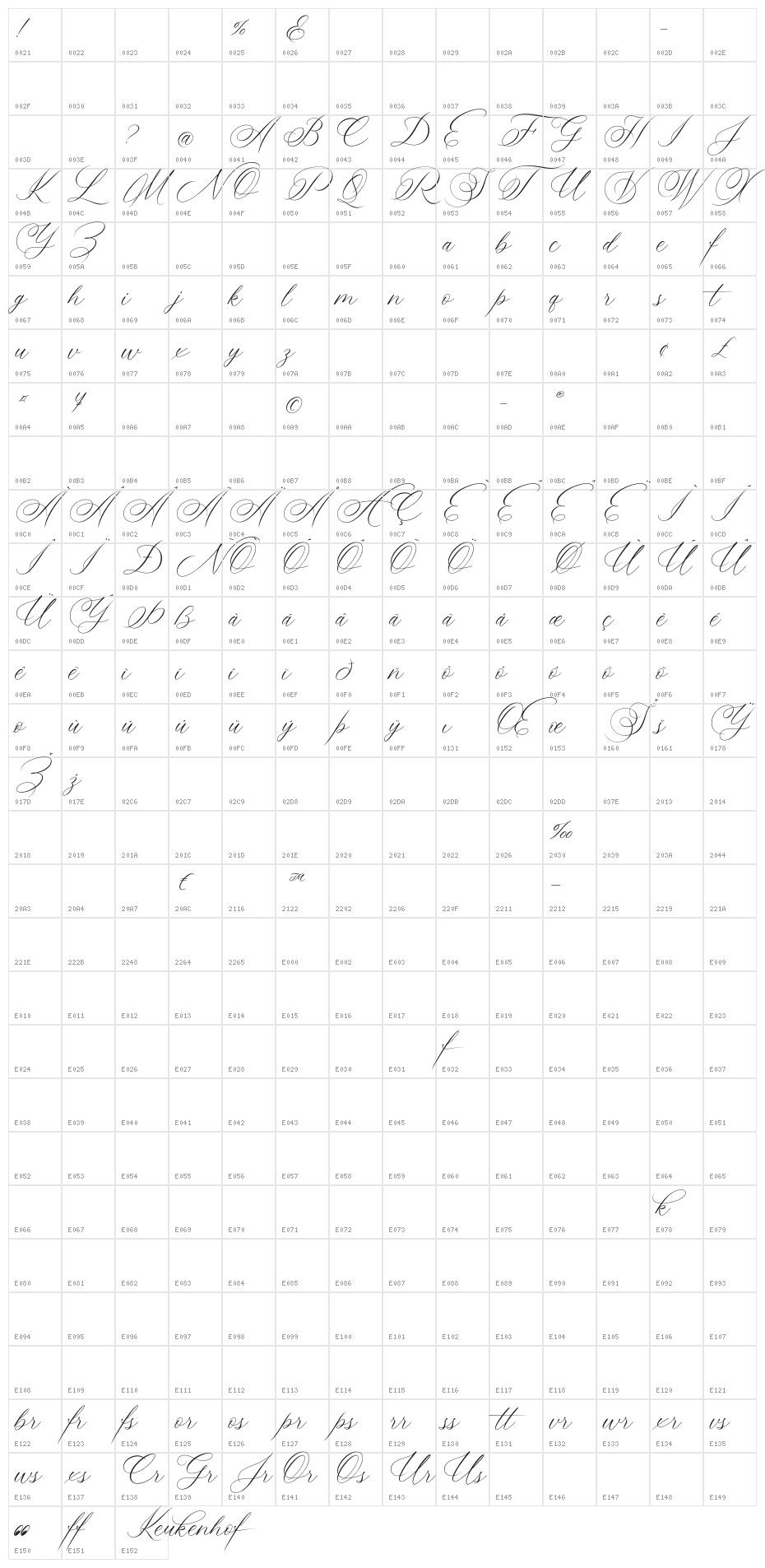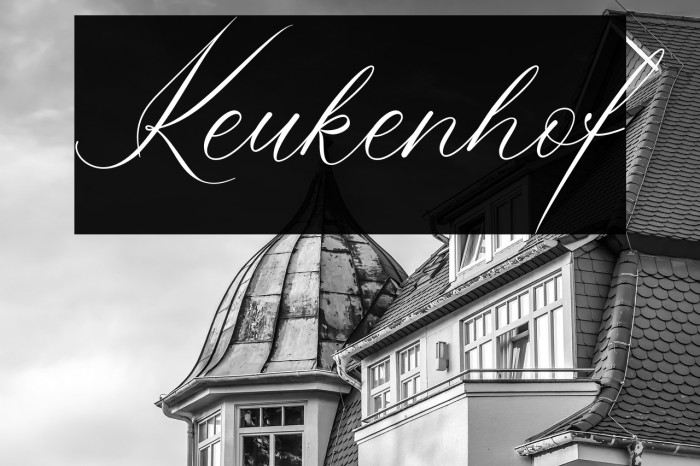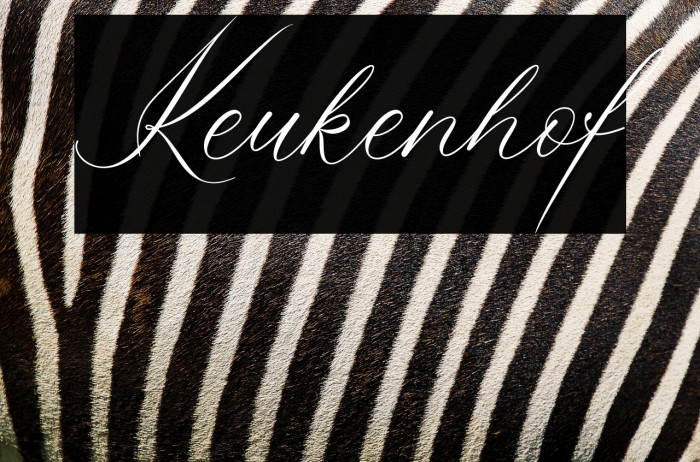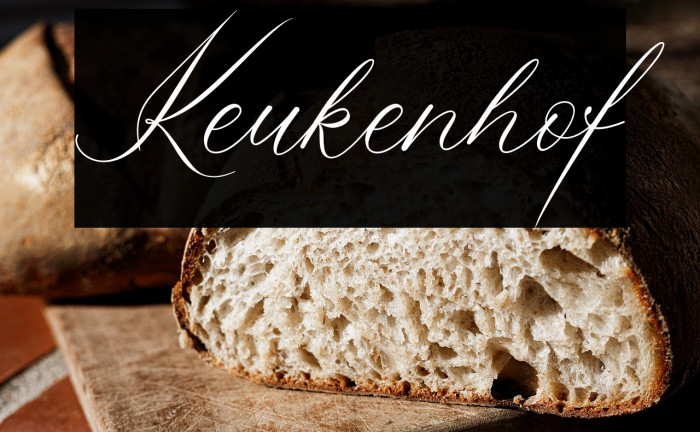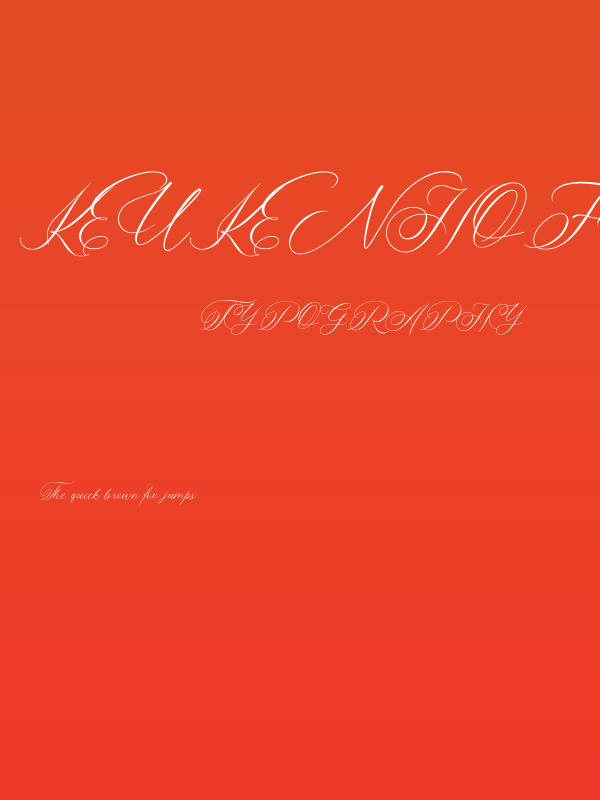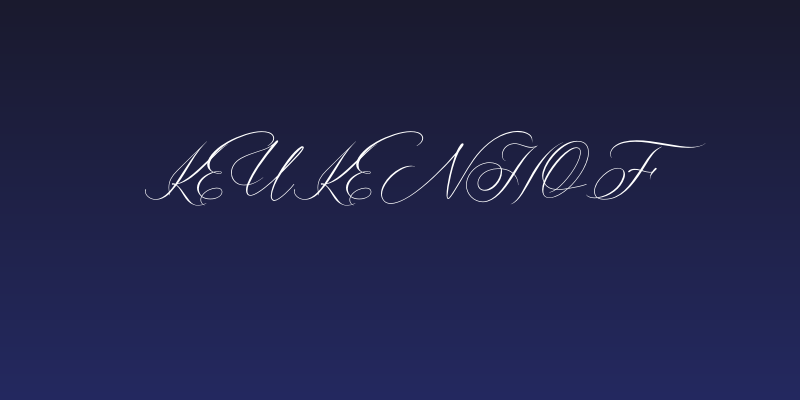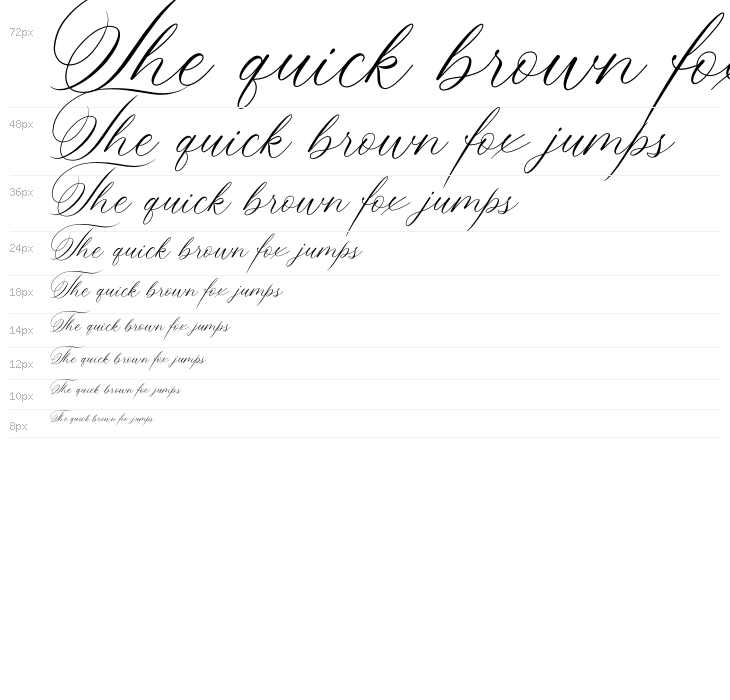
Keukenhof Font
Keukenhof Description
This elegant script font features flowing, interconnected letters with a graceful and sophisticated appearance. The uppercase letters are ornate, with intricate loops and swirls that add a touch of luxury and refinement. The lowercase letters maintain a consistent style, with smooth curves and a slight slant that enhances readability while retaining an artistic flair. The numerals and special characters are designed to match the overall aesthetic, ensuring a cohesive look across all text elements. This font is ideal for projects that require a touch of elegance and sophistication, such as wedding invitations, formal event programs, or high-end branding materials.
| Overall Style | Elegant, Sophisticated |
| Proposed Projects | Ideal for wedding invitations, formal event programs, luxury branding, and elegant stationery. |